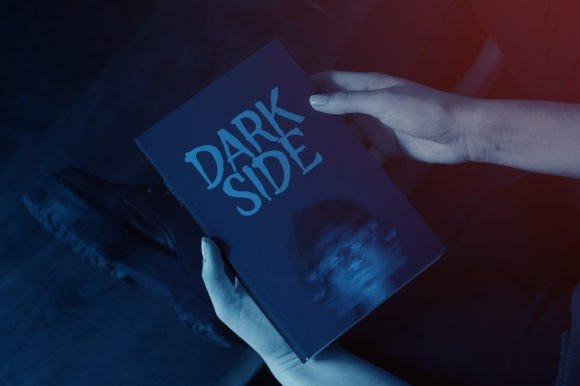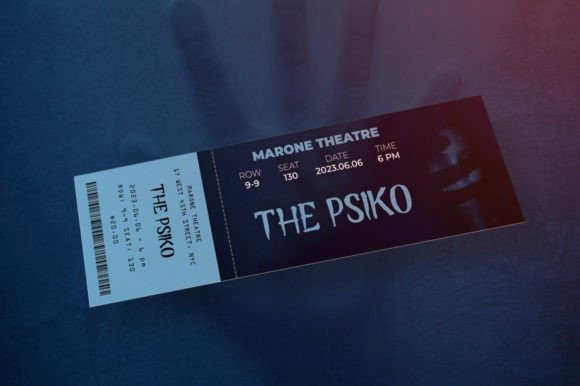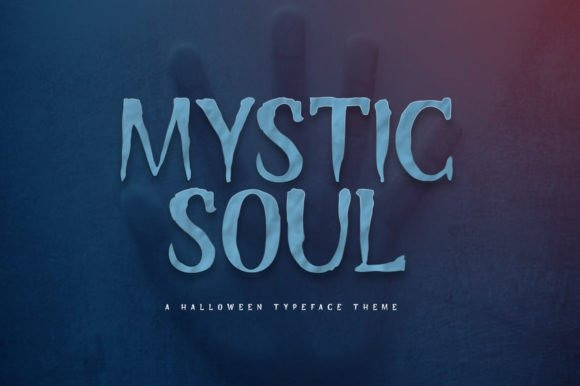
Mystic Soul Font
Mystic Soul Font is a unique and attractive display font. This font is suitable for designs with horror and Halloween concepts. It can easily be matched to an incredibly large set of projects, so add it to your creative ideas and notice how it makes them stand out!